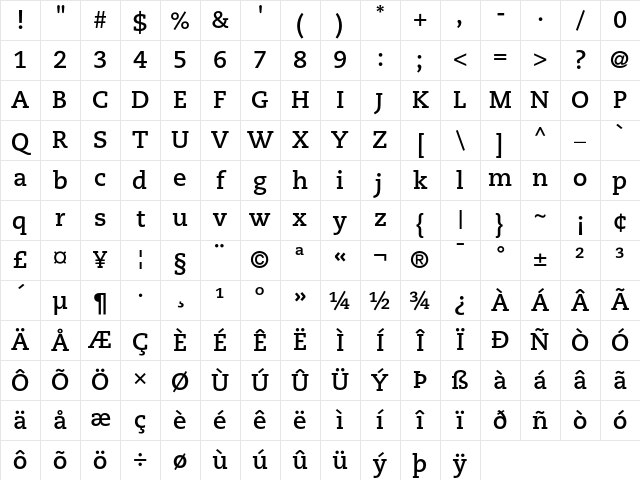
PMN Caecilia 75 Bold
Style: 75 Bold
Complete PMN Caecilia 75 Bold glyph index. Displaying only characters natively supported by PMN Caecilia 75 Bold font.
Design Context for PMN Caecilia
PMN Caecilia is a composed and adaptable typeface that performs quietly and consistently across a wide range of design contexts. Its bold stroke weight gives it real presence on the page.